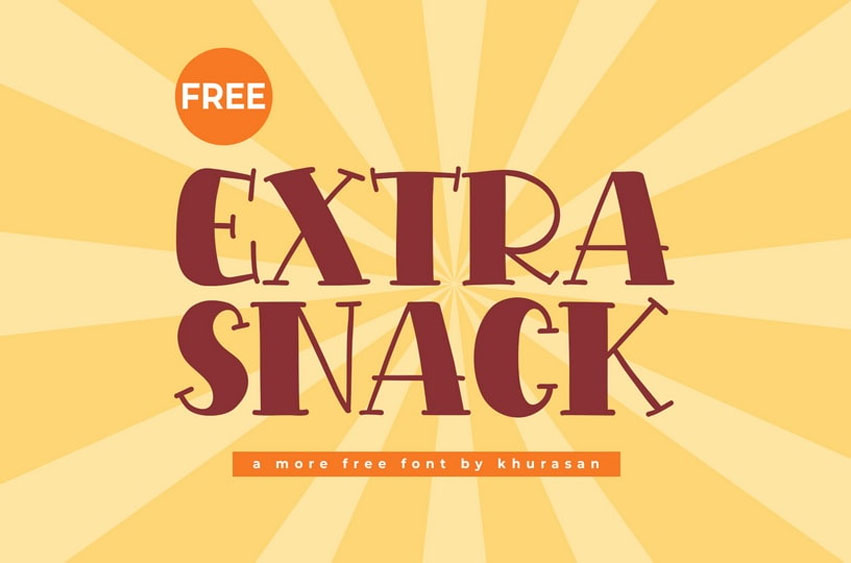
Extra Snack Font
Extra Snack Fontis a playful and quirky hand-drawn font that combines bold, blocky letterforms with contrasting strokes for a dynamic and lively look. Its imperfect, handcrafted aesthetic adds a touch of personality and charm, making it perfect for projects that demand creativity and fun.
The contrast between thick and thin strokes gives the font a unique rhythm, while the blocky structure ensures strong readability. Extra Snack font is ideal for children’s books, playful branding, posters, and any design that wants to stand out with a bold yet whimsical vibe!